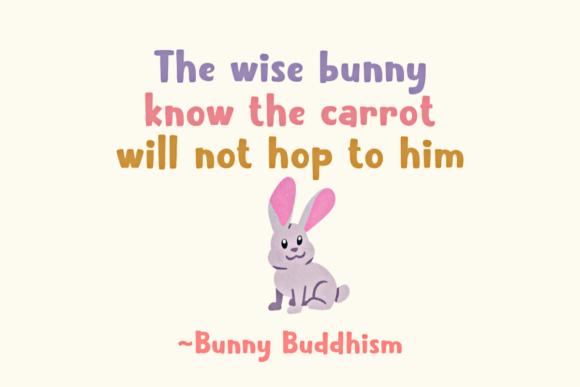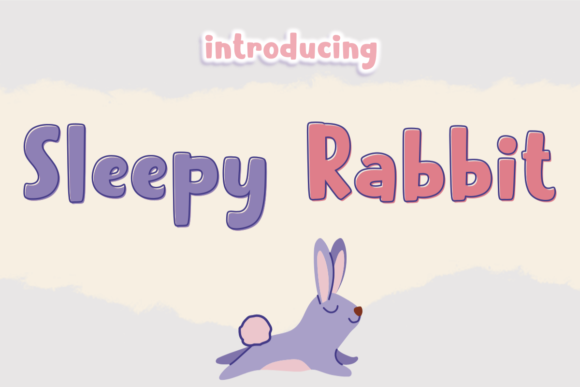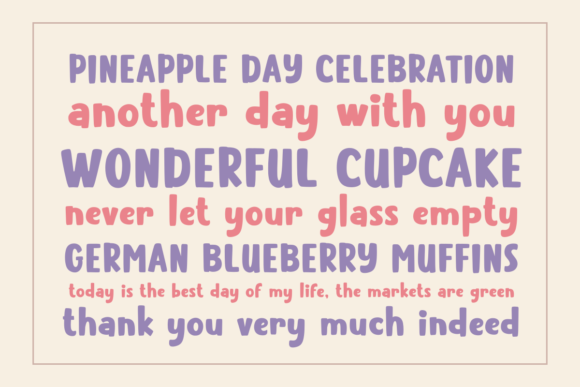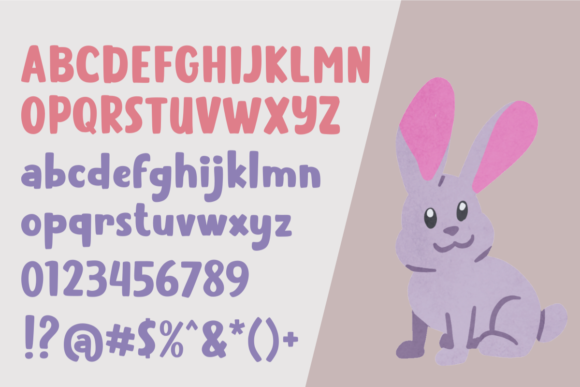
Introduction to Sleepy Rabbit Font
Have you ever stared at a blank canvas, brainstorming the perfect font to bring your creative project to life? The blank stare, the endless scrolling, the search for the elusive “perfect” font – we’ve all been there. But what if we told you we’ve found the perfect addition to elevate your designs to the next level? Say hello to the Sleepy Rabbit Font, a vintage-styled display font that’s about to become your new design BFF.
As a valuable resource for designers, the Sleepy Rabbit Font is more than just a pretty face. Its bold, high-quality design makes it the perfect addition to any creative project. With its PUA encoding, you’ll have access to all the glyphs and swashes you need to add an extra touch of personality to your work. Plus, with a transparent background, you can easily integrate it into your favorite designs.
Key Features of Sleepy Rabbit Font
- High-quality design resource for creative projects, featuring a unique and adorable rabbit character.
- Includes a transparent background, allowing for seamless integration into various design elements.
- Unique characteristics include a playful and whimsical design, making it perfect for children’s books, nursery decorations, and other creative projects.
Honest Review: Sleepy Rabbit Font
I recently stumbled upon the Sleepy Rabbit Font, and I must say it’s been a delightful addition to my design resource library. As a designer, I’m always on the lookout for high-quality fonts that can elevate my creative projects.
The Sleepy Rabbit Font is a lovely, whimsical font that’s perfect for projects that require a touch of playfulness. It’s available for free download, which is always a bonus in my book. The font comes with a transparent background, making it easy to use in various design scenarios.
- ✨ Whimsical and playful design
- ✨ High-quality font files
- ✨ Transparent background for easy use
- ⚠️ Limited font styles available (only one style is offered)
- ⚠️ Not suitable for formal or professional projects
Overall, I’m quite impressed with the Sleepy Rabbit Font. While it may not be suitable for all design projects, it’s a great addition to any design resource library. I can see myself using it for children’s book illustrations, party invitations, or any other project that requires a playful touch.
Introduction to Sleepy Rabbit Font
The Sleepy Rabbit Font is a unique and playful design resource that can add a touch of whimsy to any creative project. This high-quality font is available for free download and features a transparent background, making it easy to incorporate into your designs.
Tips for Getting the Most Out of Sleepy Rabbit Font
To get the most out of the Sleepy Rabbit Font, be sure to experiment with different font sizes, colors, and combinations to create unique and eye-catching designs.
Common Use Cases for Sleepy Rabbit Font
The Sleepy Rabbit Font is perfect for a variety of creative projects, including children’s book illustrations, nursery decor, and whimsical event invitations.